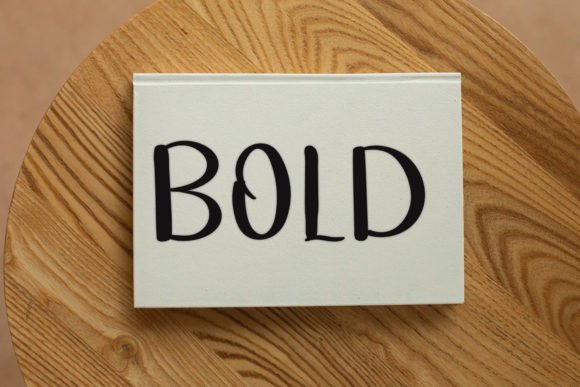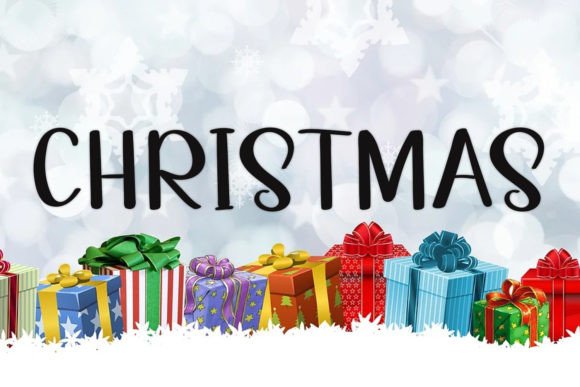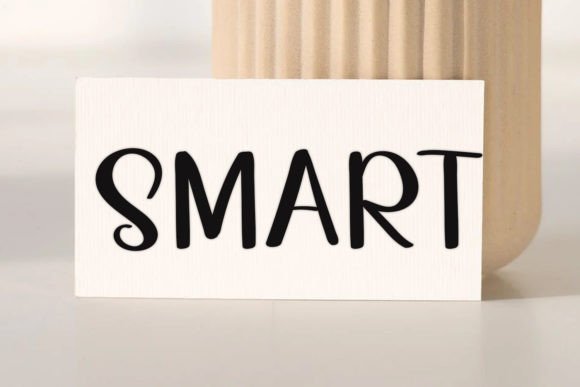
The Designer Font: A Fresh and Beautiful Addition to Your Creative Arsenal
An Honest Review of Designer Font
So, what do I love about Designer? Here are a few things:
- ✨ Versatility: Designer is a chameleon font that can adapt to various design purposes, from YouTube banners to wedding invitations, ID cards, flyers, and more.
- ✅ Elegant and Modern: The font’s clean lines, beautiful curves, and fresh vibe make it perfect for designs that require a touch of sophistication.
- 💡 OpenType Features: Designer comes with a range of OpenType features, including glyphs and stylistic alternates, which allow for endless creative possibilities.
Now, no font is perfect, and Designer has a few quirks:
- 🤔 Limited Cyrillic Support: While Designer supports a range of languages, its Cyrillic character set is limited. This might be a concern if you’re working on a project that requires extensive Cyrillic text.
- ⚠️ Not Suitable for Body Text: Due to its elegant and modern design, Designer is best suited for headlines, titles, and short text. It might not be the best choice for body text, as it can be a bit too ornate for long paragraphs.
The Backstory of Designer Font
Designer was created by a team of talented typographers who wanted to craft a font that would be both elegant and modern. Inspired by the latest design trends, they poured their hearts and souls into creating a font that would be perfect for designers, crafters, and creative hobbyists alike. The result is a font that’s both versatile and beautiful, with a range of OpenType features that make it perfect for a wide range of design applications.
| What is the Designer font? | Designer is a fresh and beautiful font, perfect for design purposes such as YouTube banners, cover logo mockups, wedding invitations, ID cards, flyers, crafts, and more. |
| Does Designer support OpenType features? | Yes, Designer comes with a range of OpenType features, including glyphs and stylistic alternates, which allow for endless creative possibilities. |